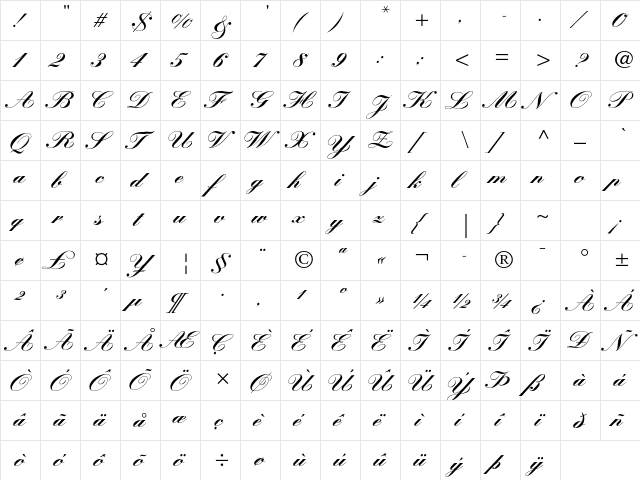
K߮stler Script LT Std Black Regular Font Preview
| Designer | Hans Bohn |
Design Context for K߮stler Script LT Std Black Typeface
K߮stler Script LT Std Black brings a calligraphic fluidity to the page — its connecting strokes and expressive curves give it an unmistakably human quality. The delicate stroke weight brings airiness and refinement to layouts.
Font Pairing: Combine K߮stler Script LT Std Black with a simple geometric sans for maximum contrast — the tension between flowing curves and clean structure is a classic typographic pairing.
Pro Tip: Pair K߮stler Script LT Std Black with a clean sans-serif for supporting text. The contrast between fluid script and geometric structure creates an elegant typographic hierarchy.